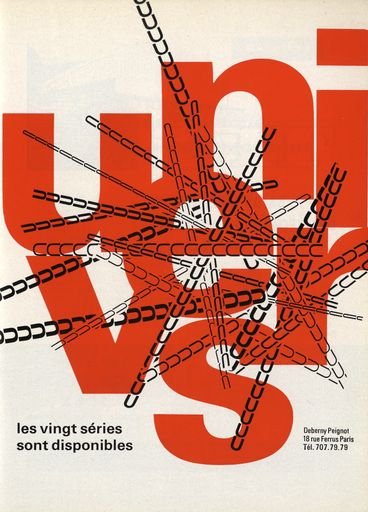
Magazine ad for the Univers typeface
Advertisement which appeared in the French graphic magazine Caractère in 1965. Unsigned, it was perhaps designed by Rémy Peignot. Univers was commissioned from Adrian Frutiger by the Deberny & Peignot typefoundry in Paris and was co-marketed by the British Monotype Corporation.